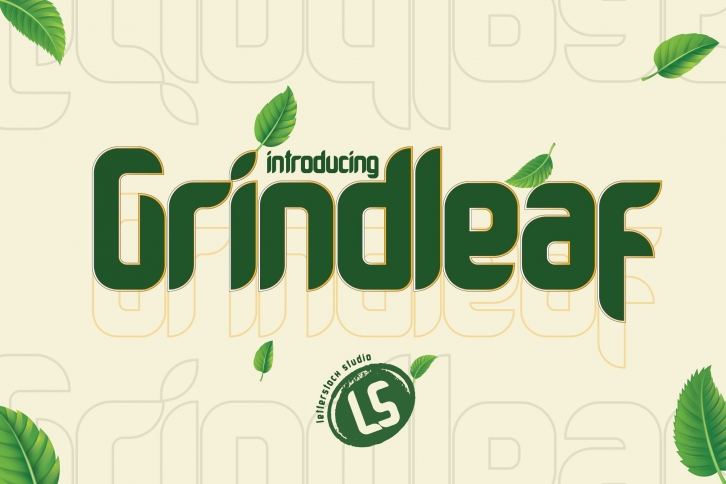
Grindleaf is a great font that was designed by Gumacreative. Imagine the amount of combinations you can create using this font! The archive is 19.99 MB and it was released on September 25, 2021. Grindleaf looks beautiful on wedding invitations, greeting cards, logos, posters, labels, t-shirt designs, logos, business cards and is perfect for use in ink or watercolor works, fashion, magazines, packaging and food menus, children's books and more!